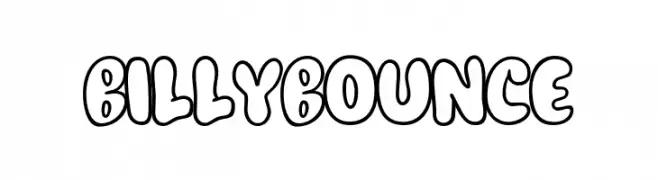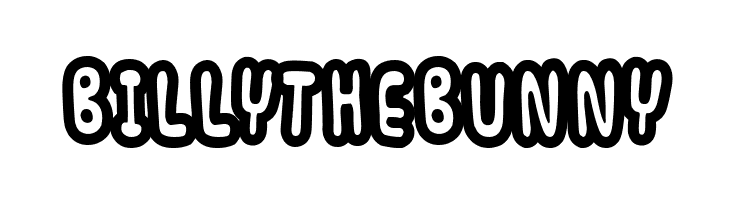
A bold, block-like typeface with a strong, impactful presence.
A bold, cursive font with smooth, flowing characters.
A playful, handwritten font with a light, airy feel and artistic flair.
A playful, rounded, and informal font with a handwritten feel.
An ornate and elegant script font with intricate flourishes.
A playful, crayon-like font with a textured, handcrafted appearance.
An elegant script font with flowing, decorative letterforms.
A playful, bubbly font with thick, rounded characters and a whimsical outline.
A playful and whimsical script font with flowing, interconnected letters.